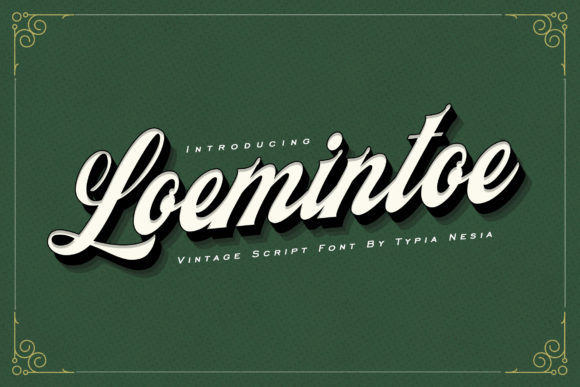
Loemintoe Font
Are you ready to embark on a whimsical adventure into the world of typography? Allow us to introduce you to "Loemintoe," a mesmerizing script font that will ignite your creativity and leave an unforgettable mark on your designs.
Loemintoe is not just a font; it's an artistic expression, a journey back to the golden era of handwritten scripts. Its vintage charm will transport your designs to a time of timeless elegance and playful sophistication. Each letter is meticulously crafted, imbued with a personality that speaks to the heart.
As you explore the depths of Loemintoe, you'll discover its versatility, making it the perfect choice for a myriad of projects. From heartfelt love letters to captivating invitations, from stylish logos to enchanting branding, Loemintoe effortlessly adapts to your vision, adding a touch of nostalgia and playfulness wherever it goes.
But Loemintoe is not merely a tool for the written word; it's an invitation to let your imagination soar. Its nostalgic look inspires a sense of longing for a simpler time, where penmanship was an art form and every letter told a story. With Loemintoe, you can savor the beauty of handwritten scripts and bring a touch of that timeless charm to your own creations.
So, whether you're a seasoned designer looking to add a touch of vintage flair to your work or a typography enthusiast yearning for a font that exudes character, Loemintoe is the perfect choice. Embark on this typographic adventure today, and let Loemintoe guide you to design masterpieces that will captivate and inspire.